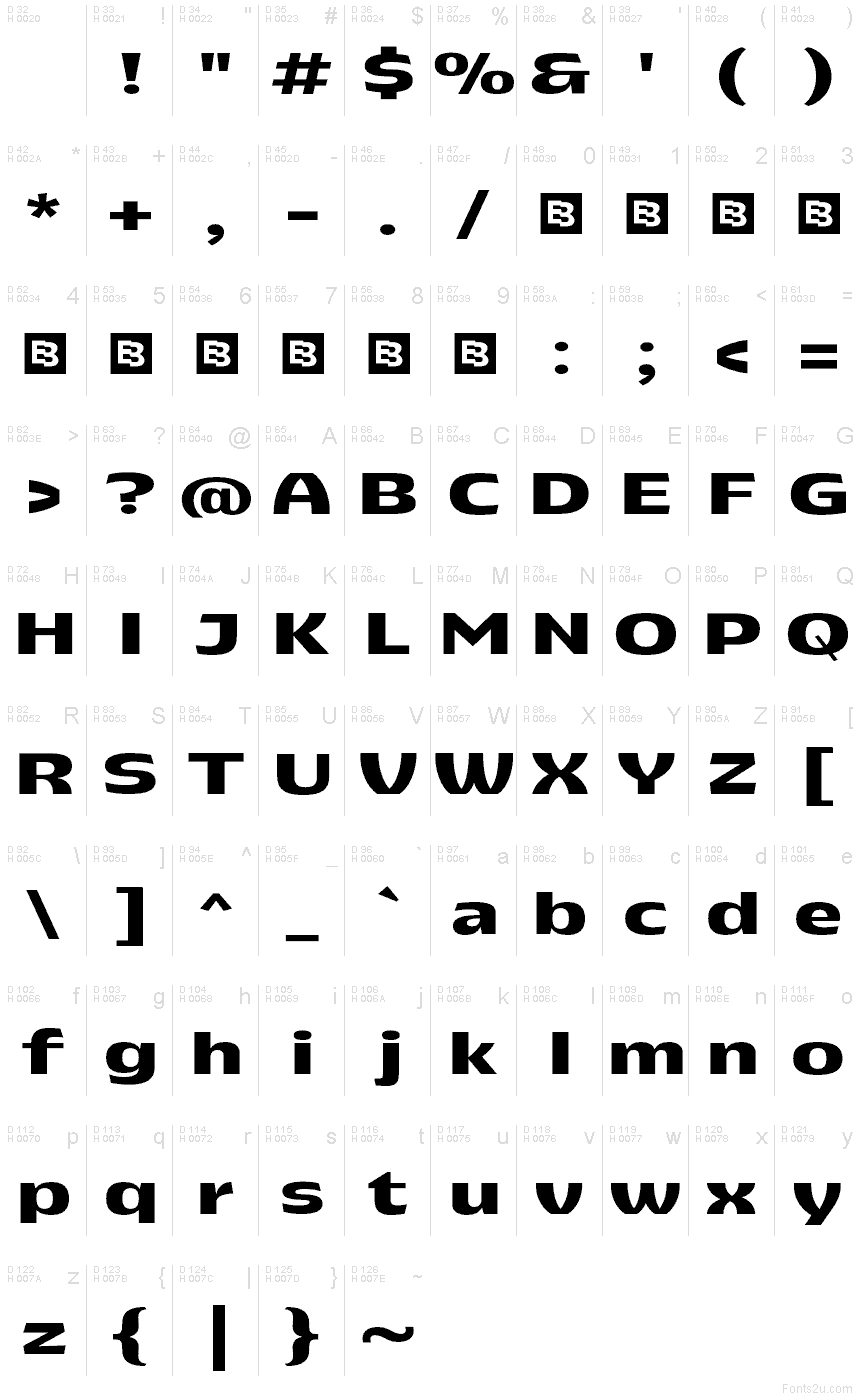
Pocas Trial Bold Expanded
Pocas Bold Expanded font by Eko Bimantara is a free expanded sans serif typeface that fixes those wide layouts that never feel full enough. Its broad stance, chunky strokes, and smooth, rounded edges create a confident line that reads fast and hits hard. Tight spacing keeps big words cohesive, while the open shapes prevent the heaviness from turning muddy.
Using Pocas Bold Expanded, headlines snap into place on hero banners, billboards, event posters, sports graphics, packaging, and YouTube thumbnails. The wide rhythm fills horizontal space without shouting, giving logos and wordmarks a solid, modern presence. This free font works beautifully at large sizes; pair it with a neutral humanist sans for body copy to keep the message clear.